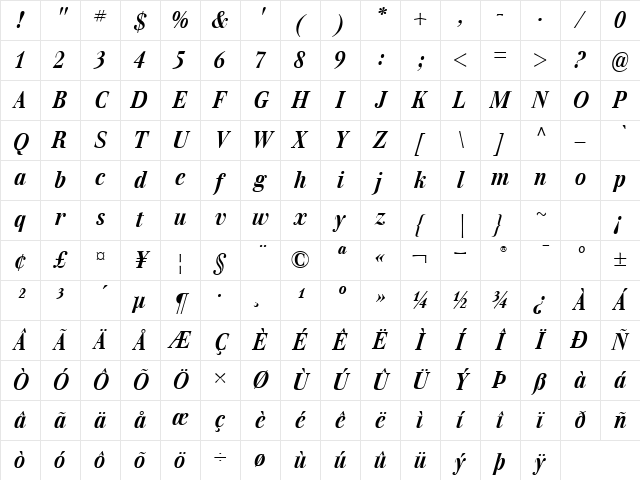
Walburn BoldItalic
Walburn Family
Design Context for Walburn
Walburn is a composed and adaptable typeface that performs quietly and consistently across a wide range of design contexts. The slanted form adds forward momentum and visual energy. Its bold stroke weight gives it real presence on the page.